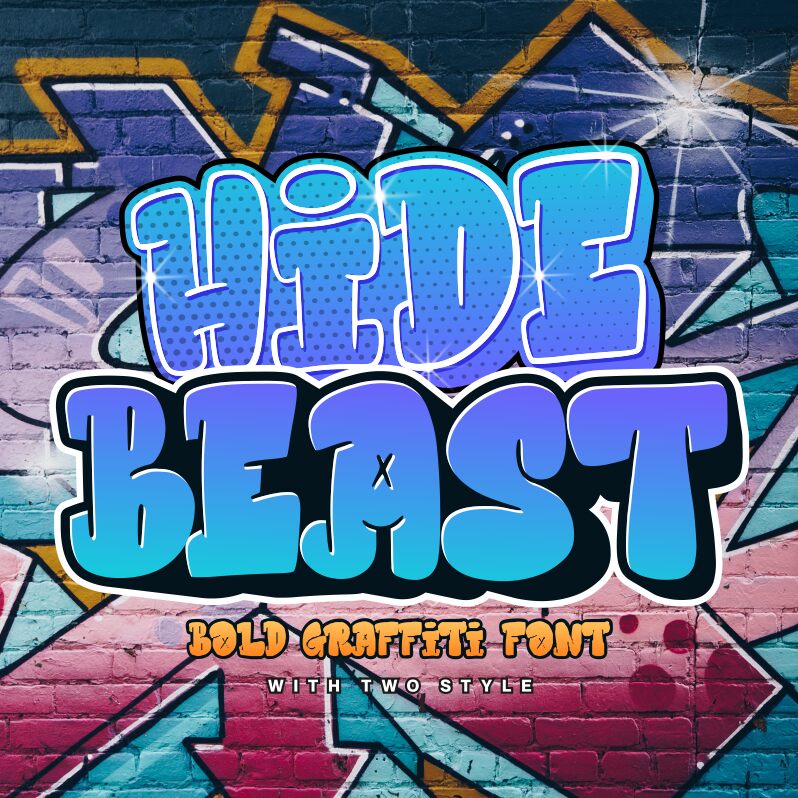
Hidebeast Demo
With its bold and condensed design, Hidebeast is the perfect display font to make a statement. Created by Allouse Studio, this outlined typeface adds a touch of edginess to any project. Its extra-bold weight demands attention and is suitable for branding, advertising, and product packaging. The condensed width makes it ideal for headlines or titles that need to fit into limited space. Whether you're creating a poster for an event or designing a logo for a startup company, Hidebeast is sure to leave an impact. Try it out on your next project and see the difference it makes.